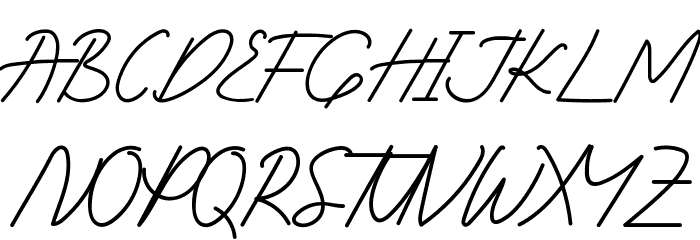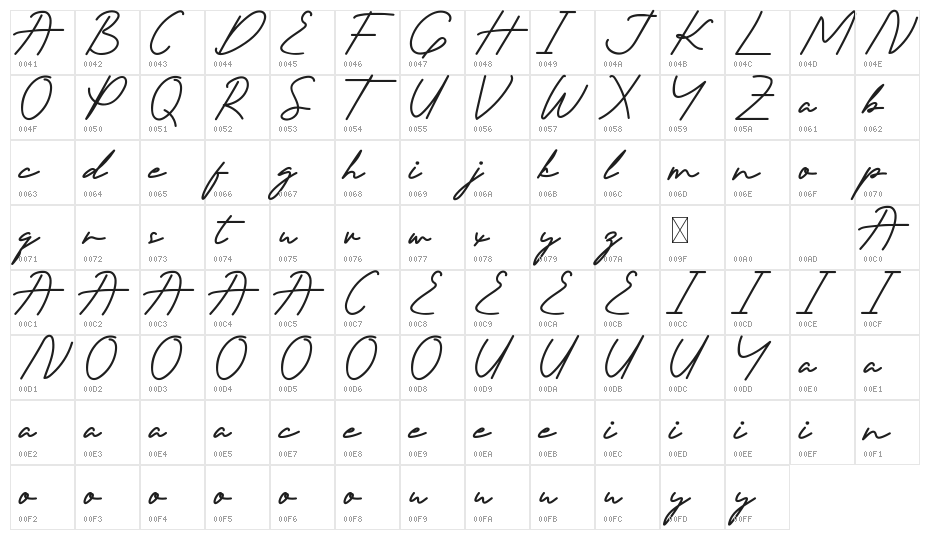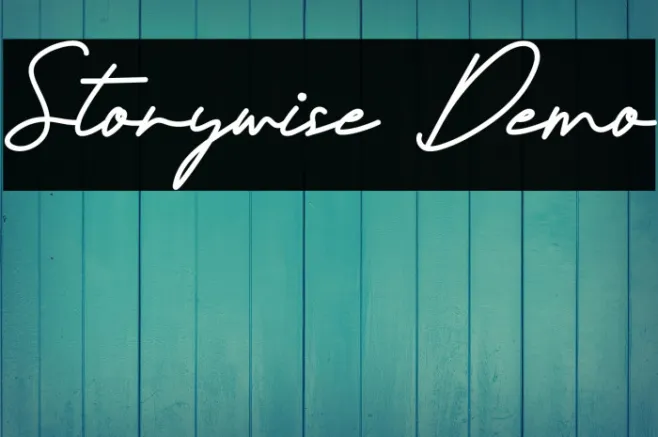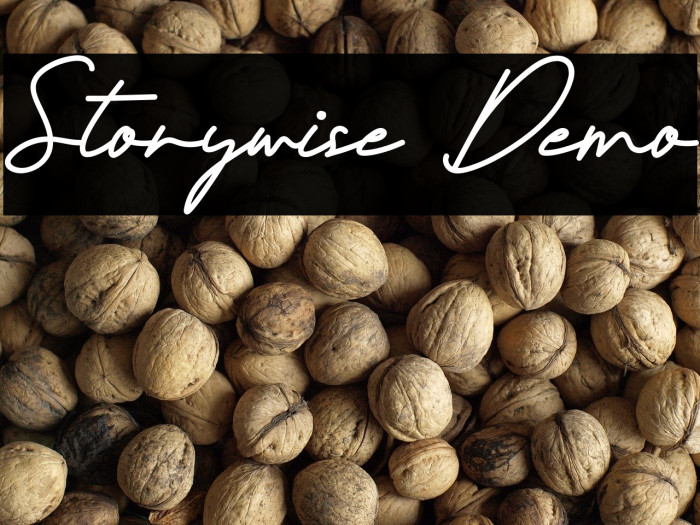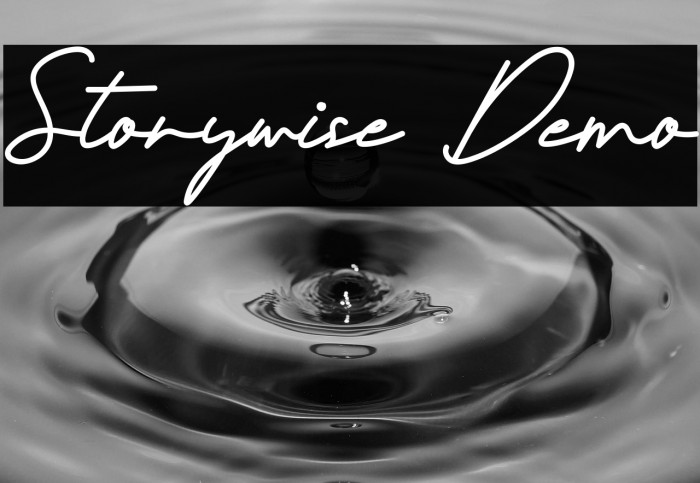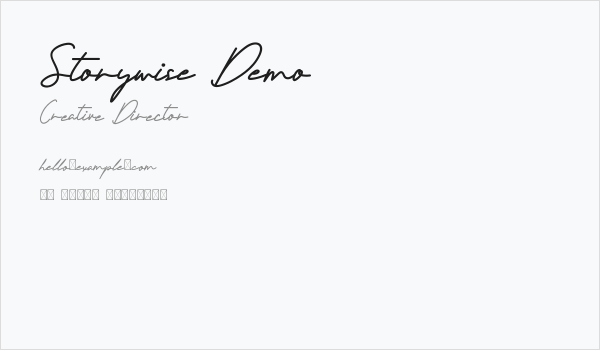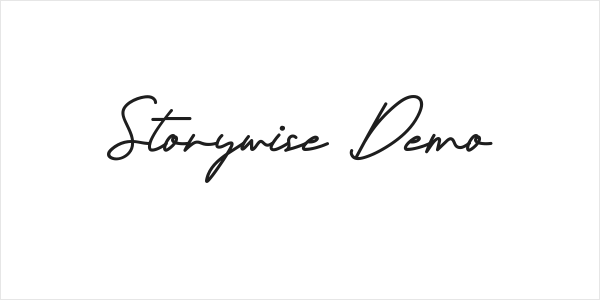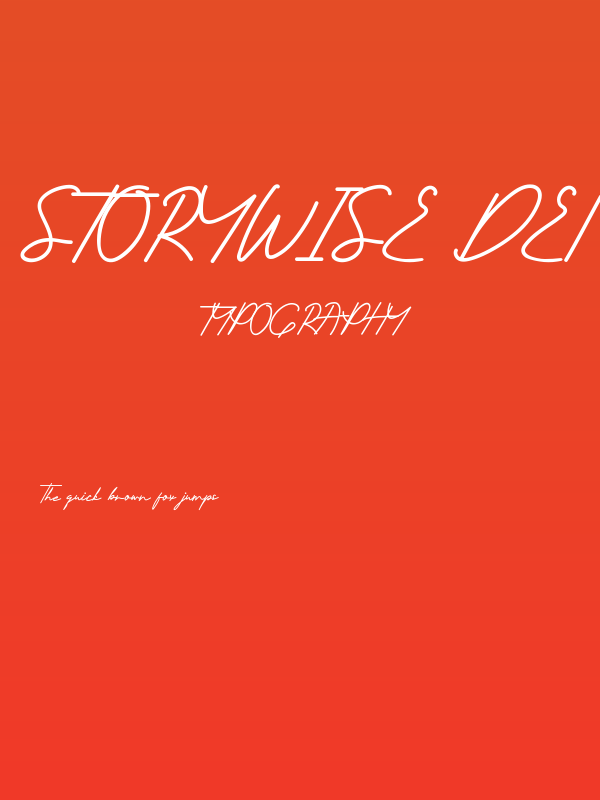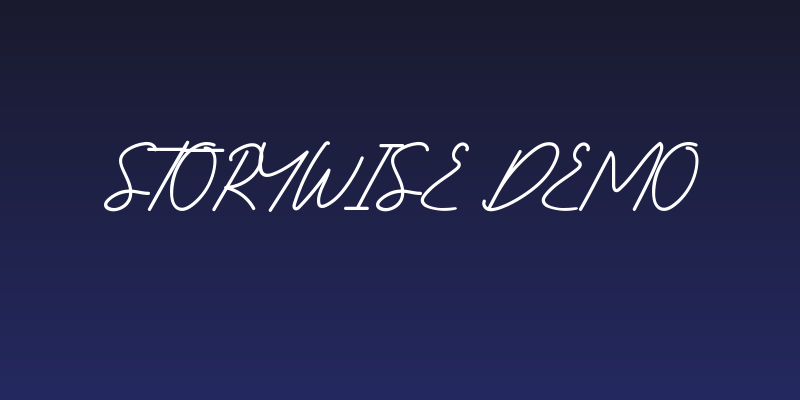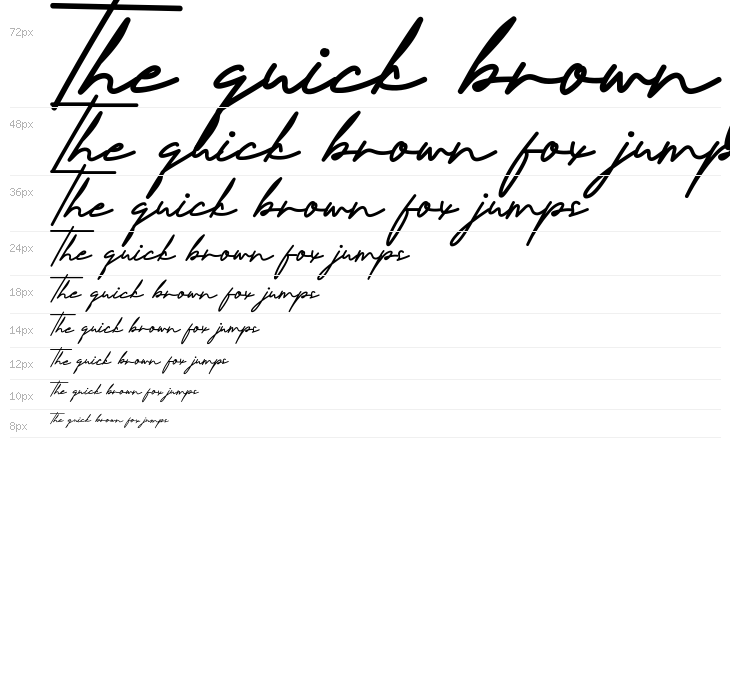
Storywise Demo Font
Storywise Demo Description
This font features a dynamic and fluid script style, characterized by its elegant and flowing letterforms. The uppercase letters are tall and slender, with a slight slant that adds a sense of motion and grace. The lowercase letters are more compact, with smooth curves and connections that create a cohesive and harmonious appearance. The overall design is reminiscent of handwritten calligraphy, offering a personal and artistic touch. The strokes are consistent in weight, providing a balanced and uniform look across all characters. This font is versatile, suitable for a variety of creative projects where a touch of elegance and sophistication is desired.
| Overall Style | Elegant, Artistic |